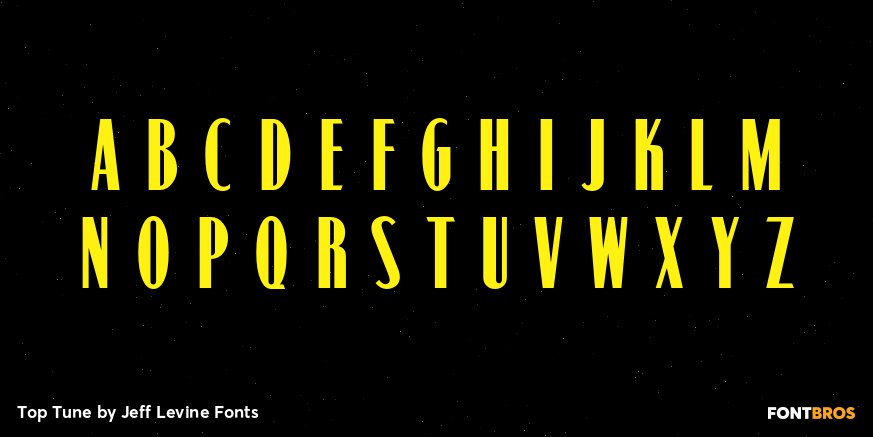
Top Tune
The 1955 British edition of the sheet music for Frank Sinatra's hit 'I'm Walking Behind You' had its title hand lettered in a sans serif design straight out of the Art Deco era.
This bold, condensed type style is now available as Top Tune JNL; in both regular and oblique versions.